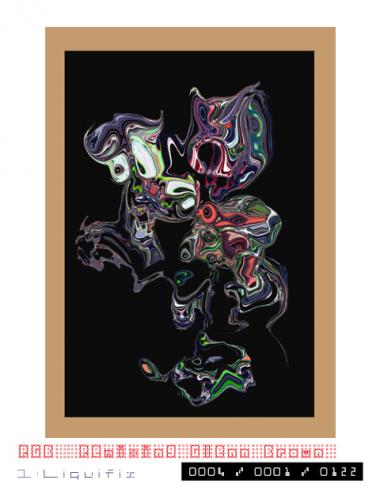
I like the font and concept, especially in small sizes, but seven letters are not really drawn, as if you could not find a solution. Maybe in the future ?
Some characters are indistinguishable (I M N Q R T V W X Y) but those that work are Awesome.
Yeah, im really sorry neurone and thalamic, because this font is not finished yet, im on a other project now about Braille.
yes neurone, these seven letter are unfinished (I M N Q R T V W X Y) also say thalamic as indistinguisible. (sorry my bad english)
I think that i finished...
A great result from such a restrictive format - good work :)
Thanks, yeah im done with the capital letters, now i ll make the small letters
A simple concept, and a fascinating result. It reminds me of a selected item in Adobe Illustrator or similar softwares, with those small squares at the corners and the sides. I can see you're experimenting with different options for the lower case, such as diagonals and lines in between those squares. Without telling you much unsolicited advice, I would just say to keep the design as clean and simple as you can.
i'm impressed that you succeeded in using your primary grid for all glyphs. i was thinking you would have to modify it for some of the glyphs. congrats.
thanks all, i ll try new glyphs for this font
I used your font to title my digital artwork below in my Catalogue Raisonné. Dozen Dotted Letters is really a marvel. Thanks for sharing. The sample is a bit low fi for this kind of high detailed work But it gives you an idea. In the real book it will be much more beautiful
thanks, im glad that the font helps your work, and a nice work, i congrat.